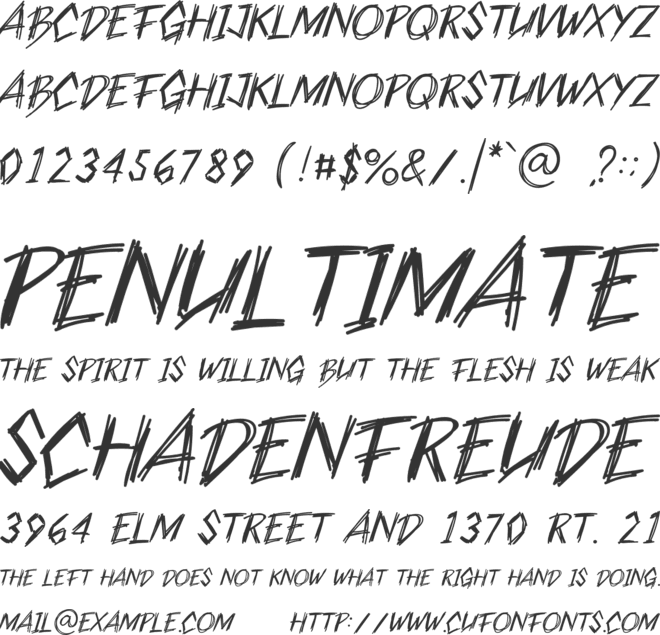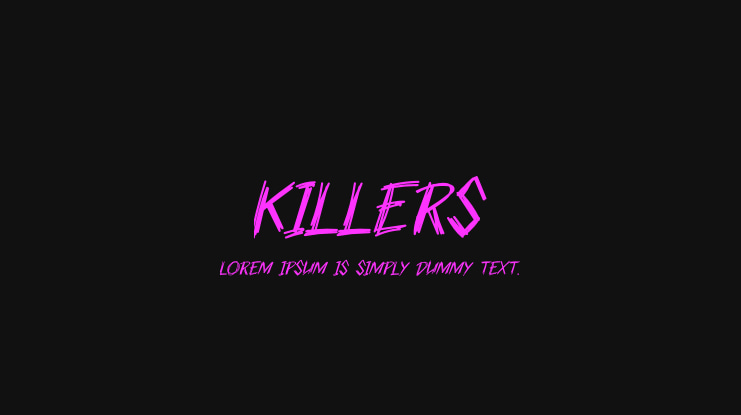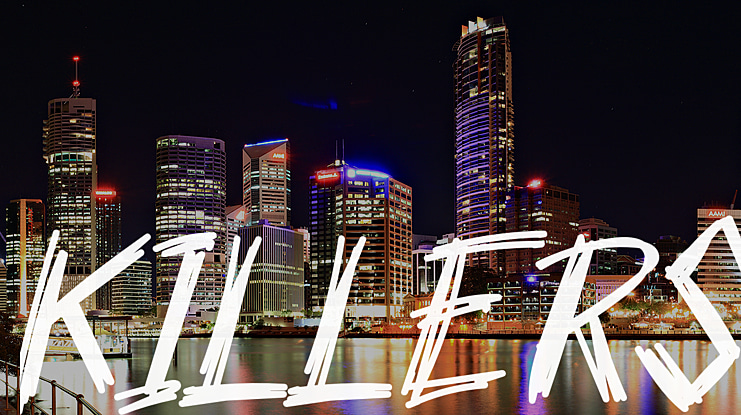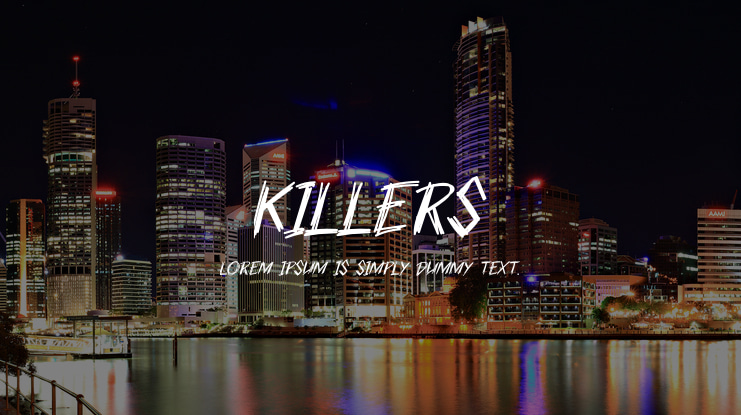
KILLERS Font
Killers is a bold and cool-looking display font. Simple but with a strong visual effect, this font will instantly make your creation more appealing than any others!